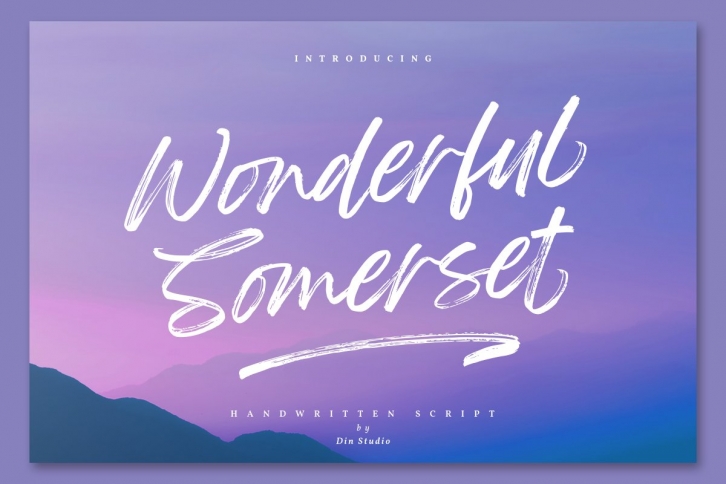
Say Hello to the Wonderful Somerset - Casual Brush Font. Made from natural hand brush. it will make your design project more beautiful. The font is suitable for any design like branding, fashion, print template, quotes, wedding and etc.
Features ;
- 78 Beautiful Alternates
- 15 Beautiful Ligatures
- 52 Swashes
- Numerals and Punctuation (OpenType Standard)